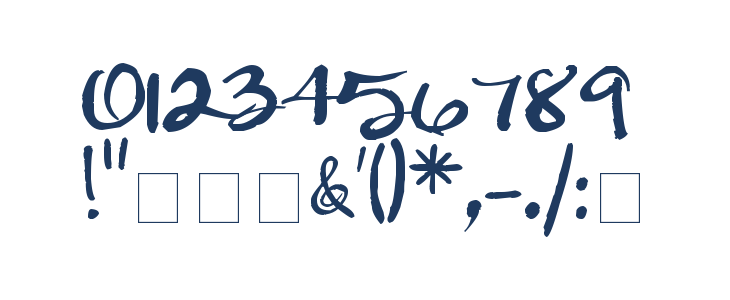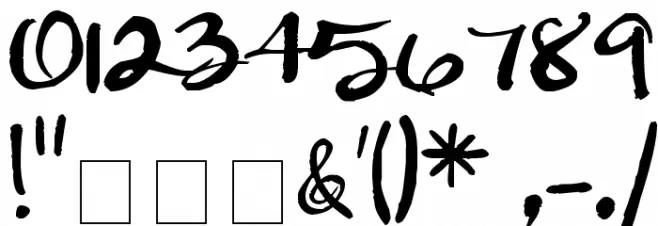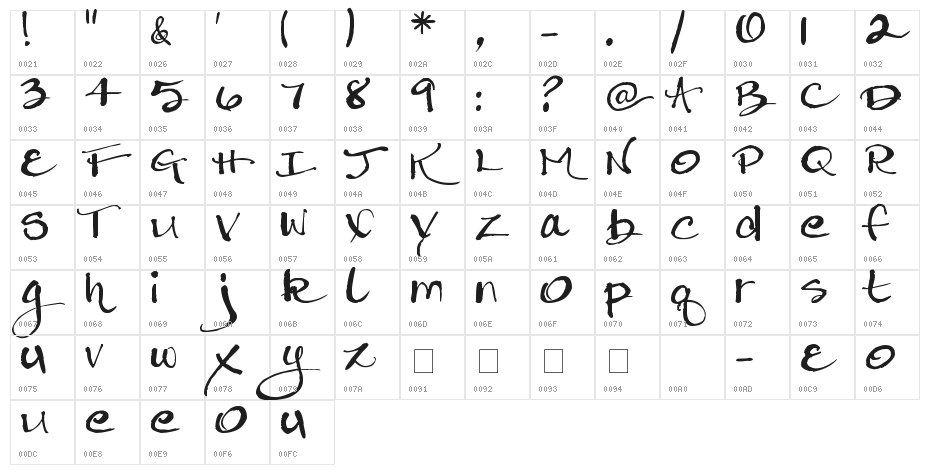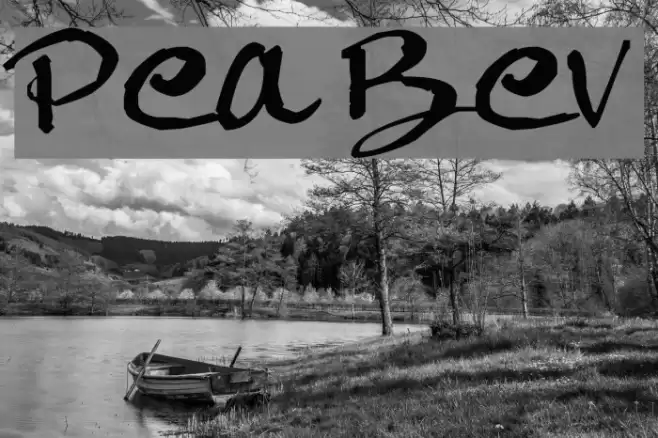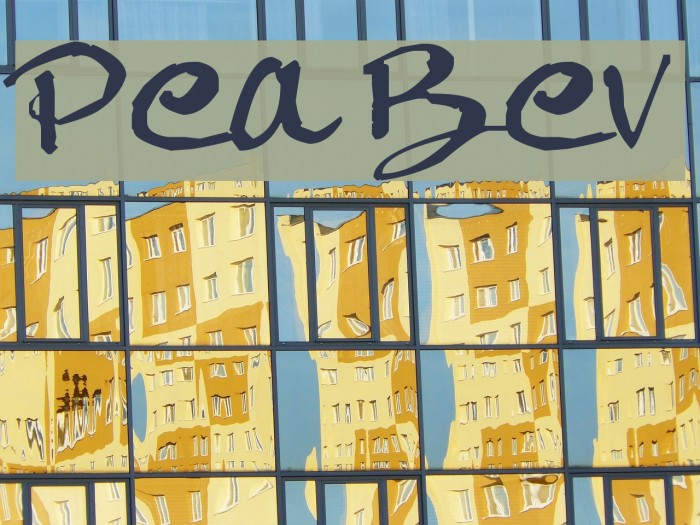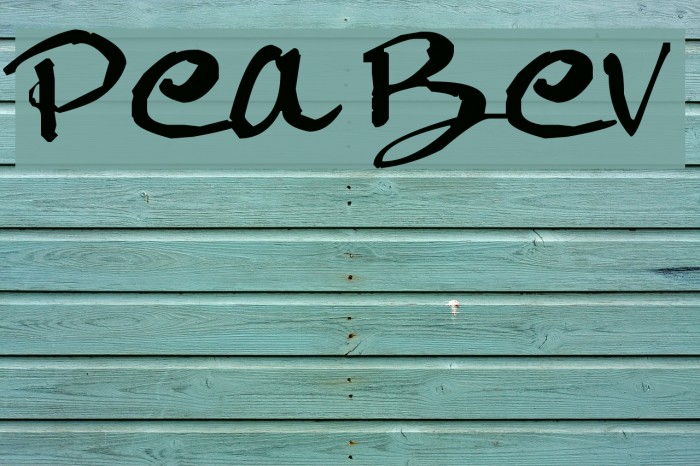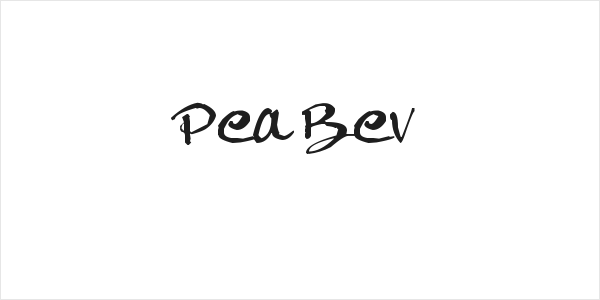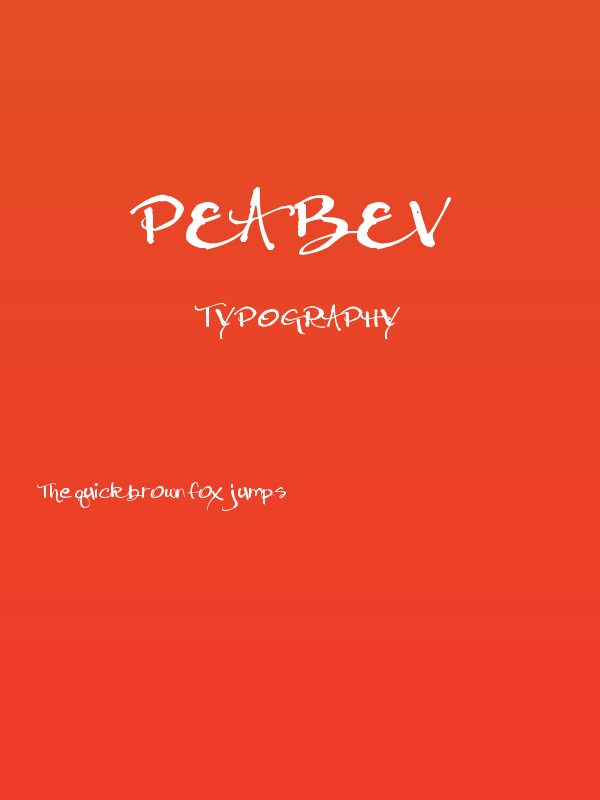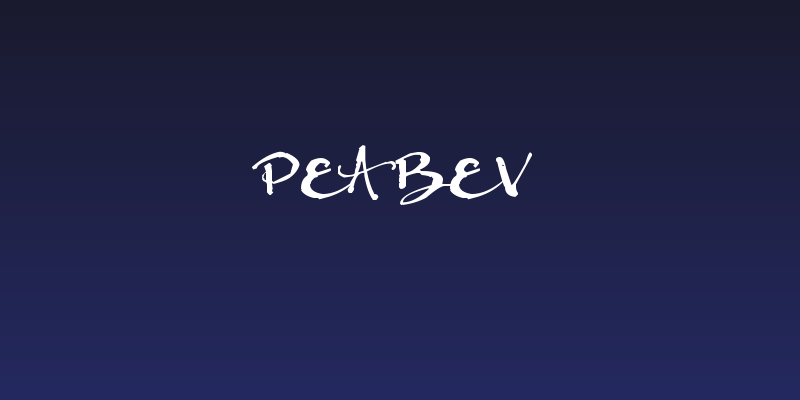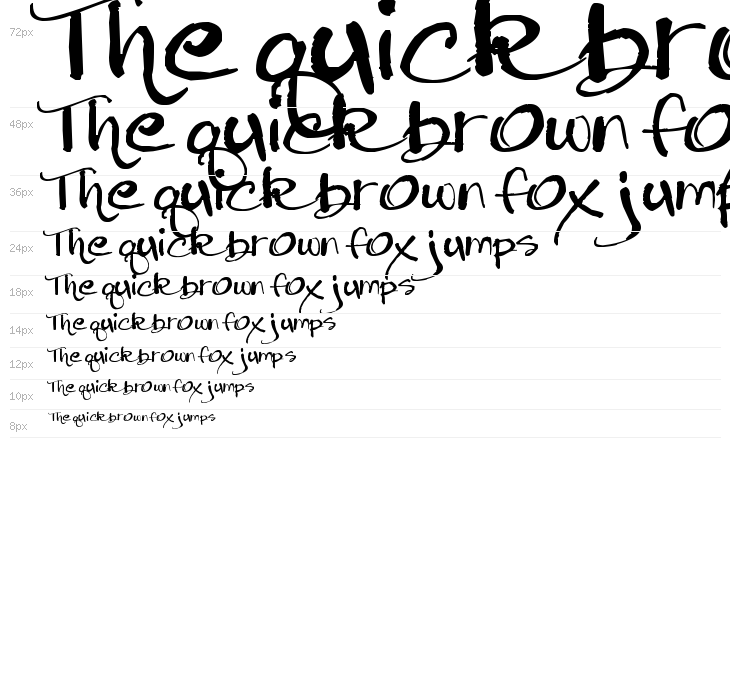
Pea Bev Font
Pea Bev Description
This font features a lively and dynamic handwritten style, characterized by its flowing and cursive letterforms. The strokes are bold and expressive, with a natural, organic feel that mimics the fluidity of real handwriting. The uppercase letters are slightly more structured, while the lowercase letters exhibit a playful and casual demeanor. Numbers and special characters maintain the same energetic style, making the font versatile for various creative applications. The overall appearance is both artistic and approachable, suitable for projects that require a personal touch.
Use CaseLogos, Headlines, Artistic projects
Proposed ProjectsIdeal for greeting cards, invitations, personal branding, and artistic projects.